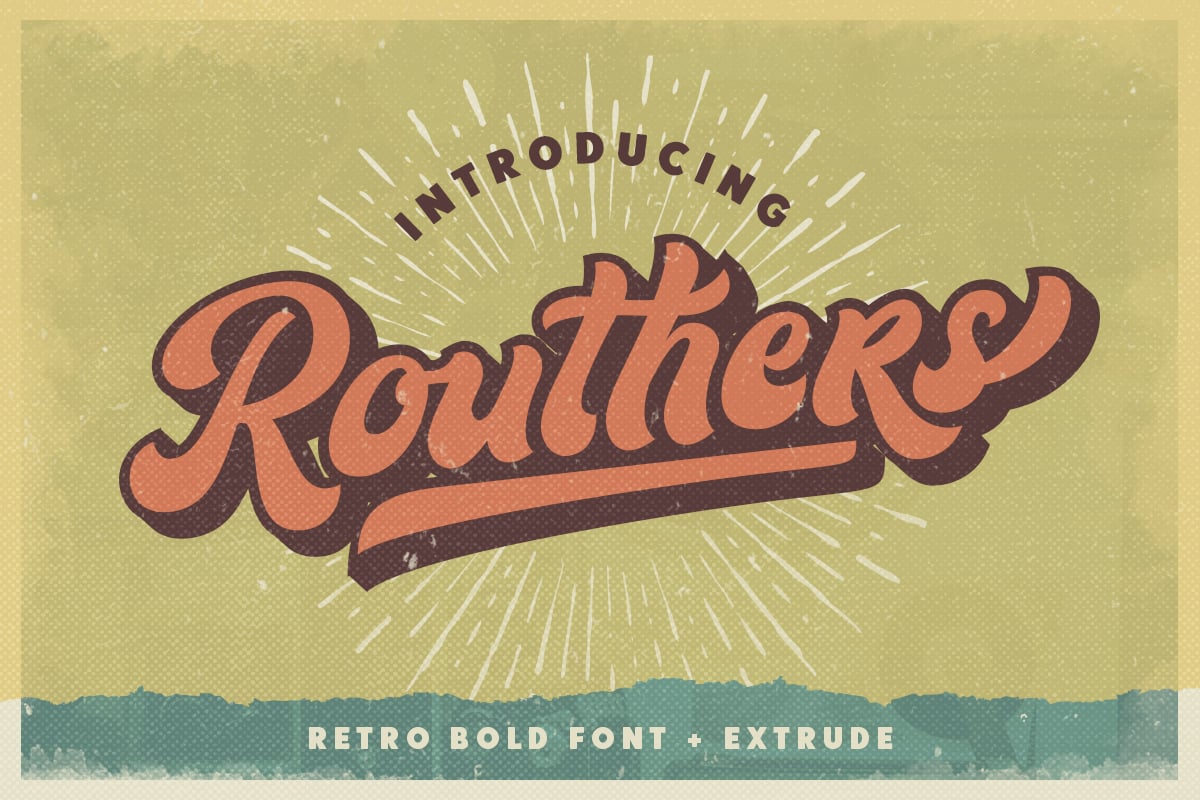
Routhers Retro + Extrude Font
Routhers Retro + Extrude Font is perfect for vintage gaming logos, retro arcade signage, 80s party invitations, synthwave album covers, neon bar branding, retro-futuristic movie titles, nostalgic product packaging, vintage electronics branding, classic car show materials, and throwback fashion campaigns.
Routhers Retro + Extrude Font is exciting because it perfectly captures the bold energy and dimensional excitement of 1980s design culture, creating a typeface that embodies the optimistic futurism and neon-soaked aesthetics of the Reagan era. This font brings nostalgic sophistication and retro-futuristic appeal to any project, making it ideal for brands that want to evoke the excitement, innovation, and cultural dynamism of the decade that defined modern pop culture. Its dimensional extrusion and retro styling create an atmosphere of energetic nostalgia that resonates with audiences who appreciate vintage aesthetics.
Routhers Retro + Extrude Font family includes regular, bold, outline, and shadow variations, plus neon effects, gradient options, and 80s-inspired decorative elements, providing designers with comprehensive tools for creating authentic retro typography and nostalgic brand experiences.
This dynamic retro typeface combines authentic 1980s design elements with contemporary digital precision, making Routhers Retro + Extrude Font Free Download an outstanding choice for projects celebrating vintage culture and retro-futuristic aesthetics. The font's boldly crafted letterforms feature dramatic dimensional effects and period-accurate styling that perfectly recreate the visual excitement of classic arcade games and neon signage.
Whether you're designing retro gaming branding, synthwave music materials, or nostalgic entertainment venues, Routhers Retro + Extrude Font delivers unmatched vintage authenticity and dimensional impact. The font excels in both large-scale environmental applications and detailed digital designs where retro character and nostalgic appeal create memorable experiences.
Retro design professionals choose Routhers Retro + Extrude Font for its ability to instantly transport audiences to the golden age of arcade culture while maintaining contemporary functionality and visual impact. The font's dimensional character makes it particularly effective for entertainment venues, gaming companies, and nostalgic lifestyle brands.
Each character demonstrates authentic 80s design principles, featuring bold dimensional construction and retro styling that creates typography as exciting and memorable as classic arcade adventures and neon-lit night drives.